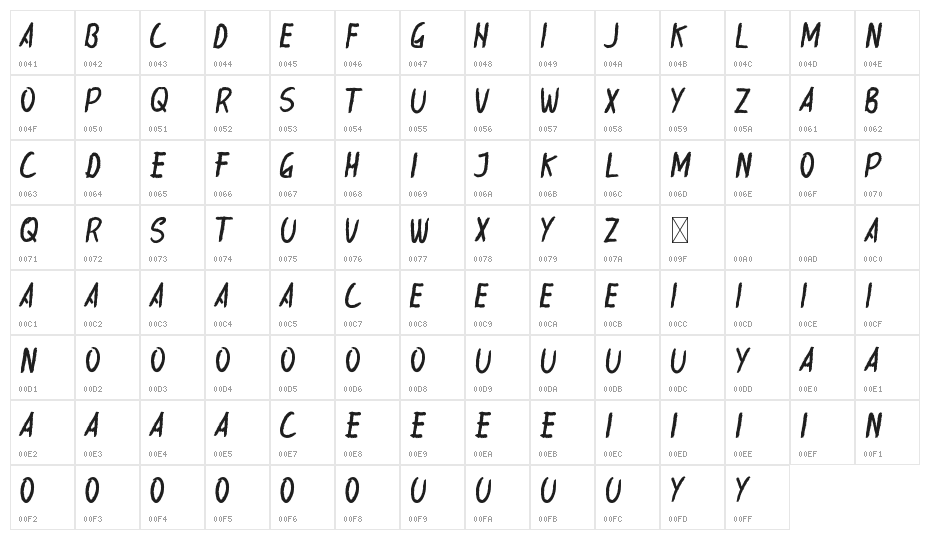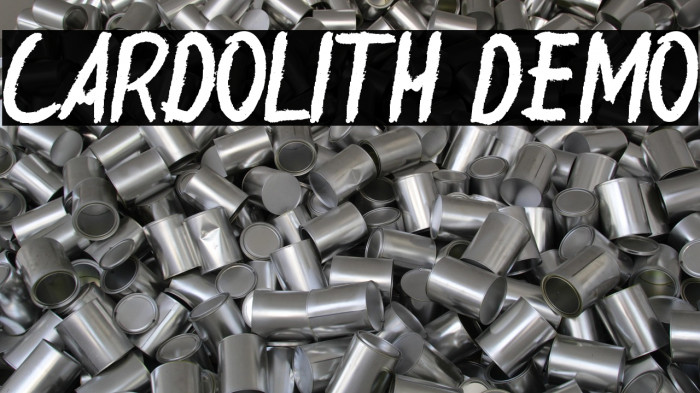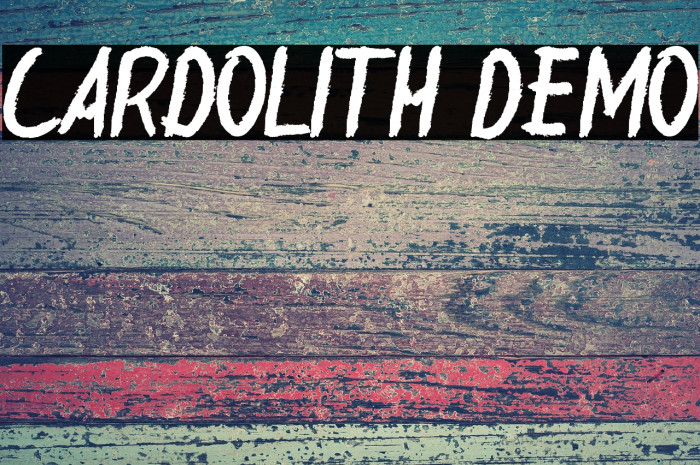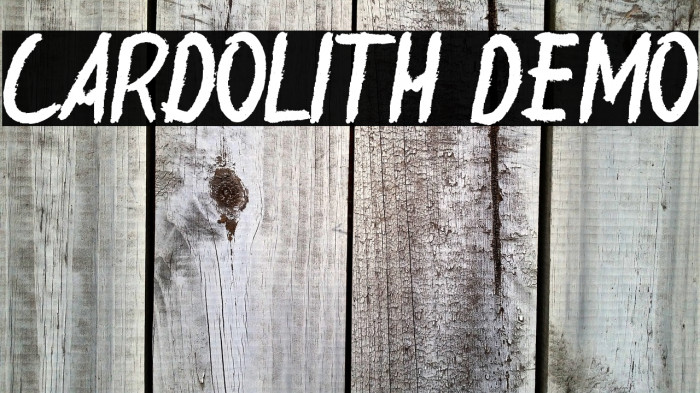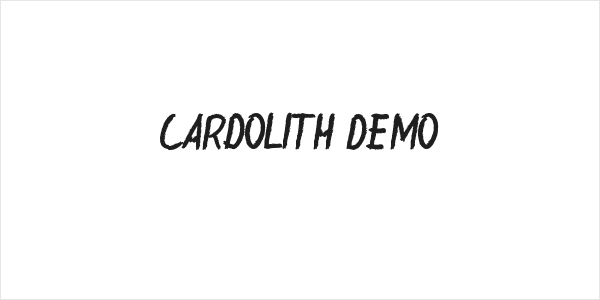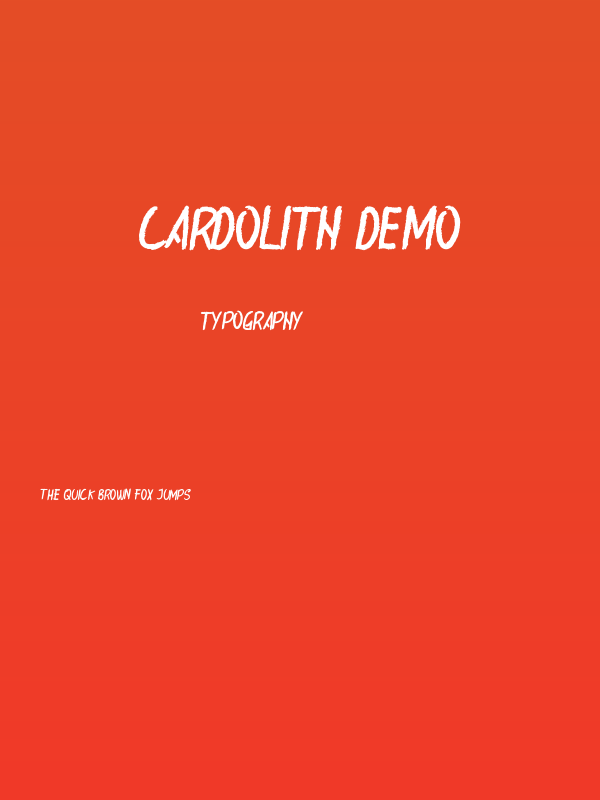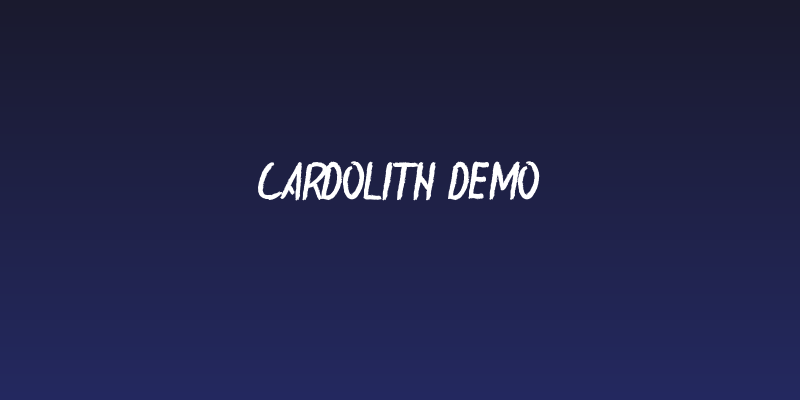
Cardolith Demo Font
Cardolith Demo Description
This font features a bold, handwritten style with a dynamic and energetic appearance. The letters are slightly slanted, giving it a casual yet impactful look. The strokes are thick and textured, resembling a brush or marker, which adds a sense of movement and personality. The uppercase letters are consistent in height, while the lowercase letters maintain a similar style, ensuring readability. The overall design is expressive and modern, making it suitable for creative projects that require a personal touch.
| Proposed Projects | Ideal for branding, posters, social media graphics, and any project that requires a personal and energetic touch. |